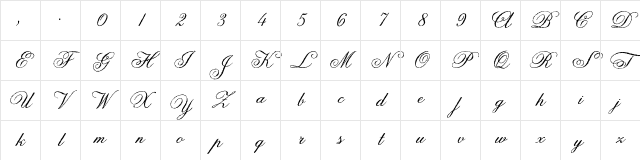
AngliaOldeConcise Regular Free Font
AngliaOldeConcise Regular
Design Context for AngliaOldeConcise
AngliaOldeConcise is a composed and adaptable typeface that performs quietly and consistently across a wide range of design contexts.
Pro Tip: Use AngliaOldeConcise in both headline and body roles to test its range before committing to a single application.